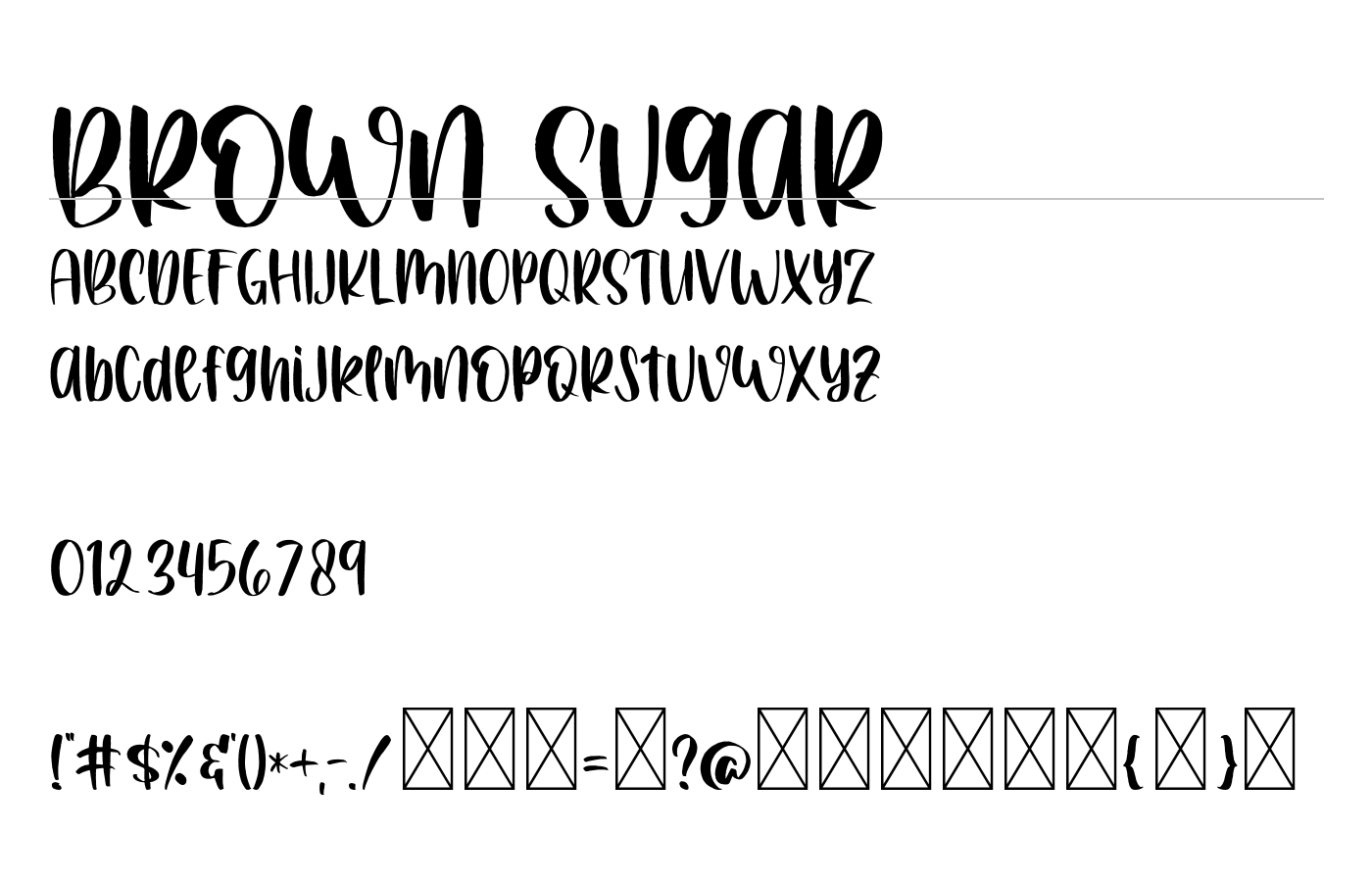
Brown Sugar is a lively and modern brush script font with a bold, hand-painted look that combines playful curves with casual elegance. Its upright, smooth strokes and moderately high x-height make it easy to read while retaining a warm, friendly personality, perfect for creative branding, packaging, and headline use where a personal, approachable style is desired.
Brown Sugar Font
About Brown Sugar Font